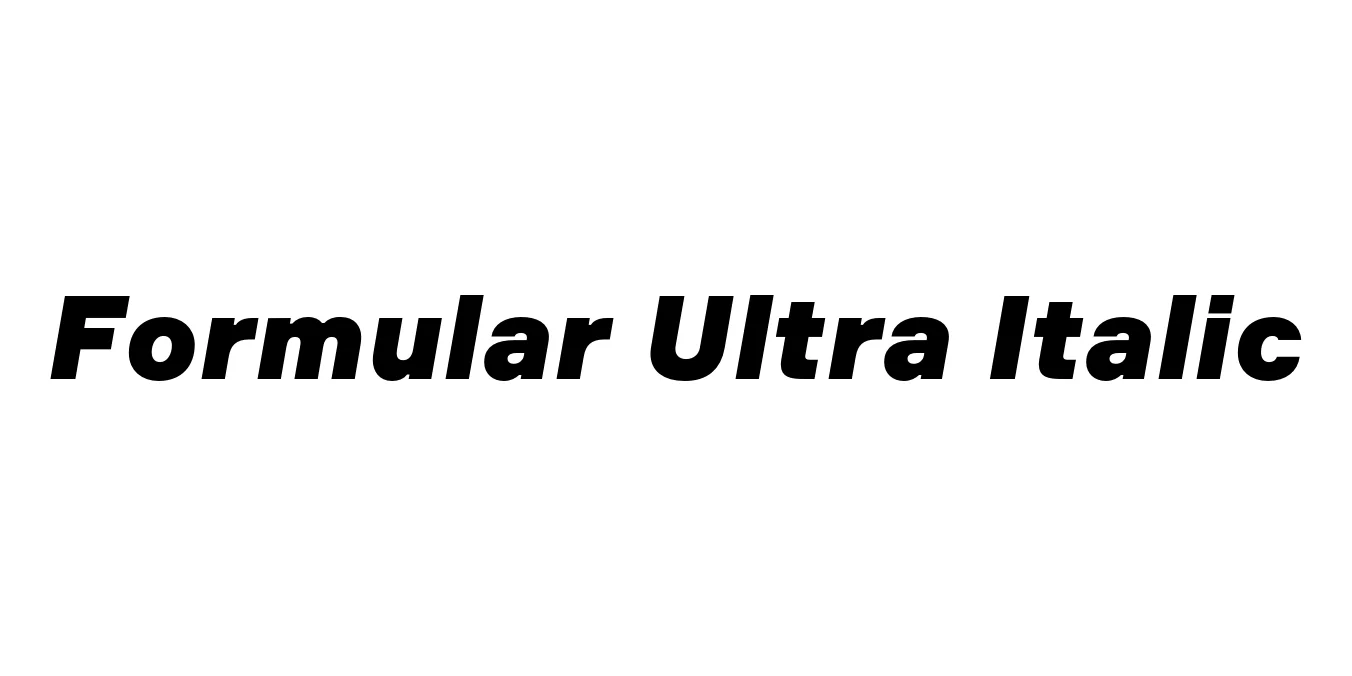
Formular Ultra Italic
Designed by Gayaneh Bagdasaryan and Vyacheslav Kirilenko
Formular Ultra Italic is a high-impact, geometric sans-serif typeface designed by the Moscow-based studio Brownfox. Drawing heavy inspiration from the Swiss International Style and mid-century modernism, this weight is part of a larger, versatile family that balances strict utilitarianism with subtle, idiosyncratic character. The Ultra Italic variant is particularly notable for its extreme weight and sharp slant, creating a sense of dynamic movement and industrial strength that is rare in standard sans-serif families.
While the typeface maintains a neutral aesthetic common to modern grotesques, it differentiates itself through wide apertures and meticulous terminal angles. This makes the Formular family an exceptional choice for designers seeking a typeface that is both functional and expressive. It excels in environments where clarity is paramount but a distinct, professional personality is required to stand out from more common typefaces like Helvetica or Univers.
Formular Ultra Italic Best Uses
Commanding headlines, posters, and billboard advertisements.
Bold corporate identities and logos for tech or industrial firms.
Attention-grabbing pull quotes and title sequences in magazines.
High-energy marketing materials and promotional banners.